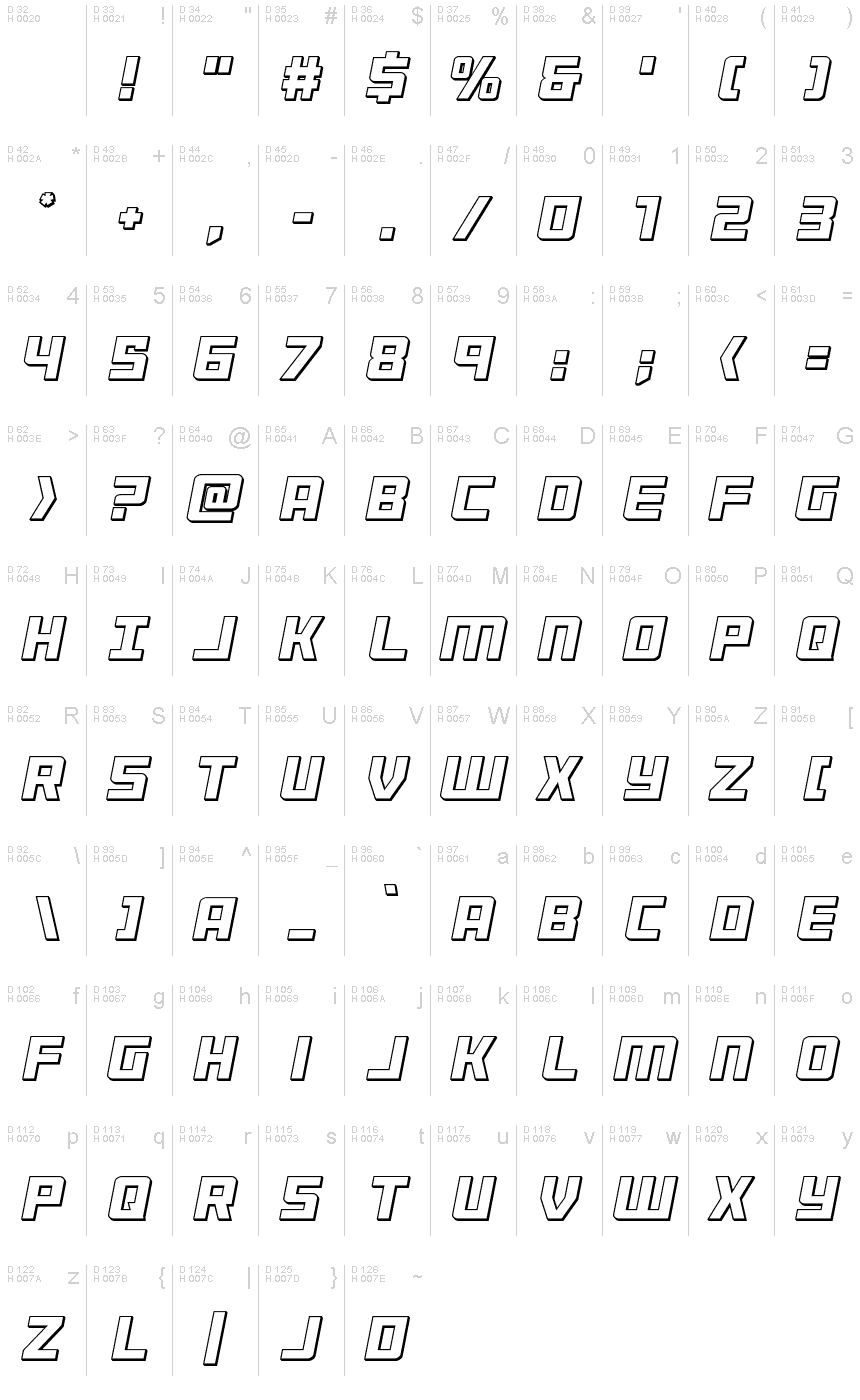
Brave Phoenix 3D Italic
Brave Phoenix 3D Italic, from the renowned designer Iconian Fonts, is a striking display font that commands attention. With its bold weight and semi-expanded width, it exudes strength and confidence. The 3D style adds depth and dimension, making it perfect for projects that aim to make a powerful impact.
From logo designs to movie titles, Brave Phoenix 3D Italic will captivate viewers and leave a lasting impression. Let this font be the hero of your next creative endeavor and unleash its boldness on your audience.